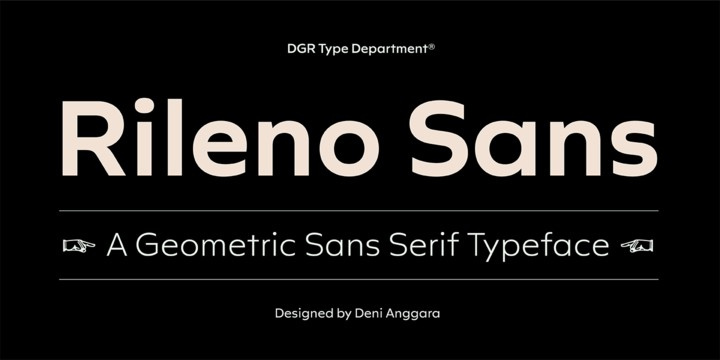
Rileno Sans Font
Rileno Sans Font is perfect for modern tech companies, contemporary design studios, innovative startups, progressive consulting firms, forward-thinking educational platforms, and cutting-edge professional services. Its contemporary character makes it ideal for digital transformation agencies, modern architecture firms, innovative software companies, progressive marketing agencies, contemporary art galleries, and any project requiring modern sophistication with contemporary professionalism and innovative excellence appeal.
This font is exciting because it embodies the clean efficiency and contemporary sophistication of modern design thinking while delivering exceptional functionality for organizations operating at the forefront of innovation, technology, and progressive business practices. The precisely crafted letterforms reflect the systematic approach and forward-thinking vision that define contemporary professional excellence, creating typography that feels both current and timelessly sophisticated.
The Rileno Sans Font family typically includes Light, Regular, Medium, and Bold weights with contemporary alternates, modern ligatures, and innovative elements that enhance its progressive personality. This comprehensive collection enables modern professionals to create authoritative brand systems that maintain contemporary credibility while offering flexibility for various innovative applications requiring both modern authority and cutting-edge market positioning.
Whether you're developing identity systems for technology companies, creating materials for contemporary design services, or designing promotional content for innovative professional organizations, Rileno Sans Font Free Download delivers the modern sophistication and contemporary appeal that resonates with forward-thinking audiences seeking progressive solutions and innovative excellence. Its sleek presence ensures professional brand recognition across digital platforms and print materials, making it perfect for websites, mobile applications, and modern campaigns that celebrate contemporary innovation, progressive thinking, and the transformative power of modern design with cutting-edge standards and authentic contemporary professionalism.